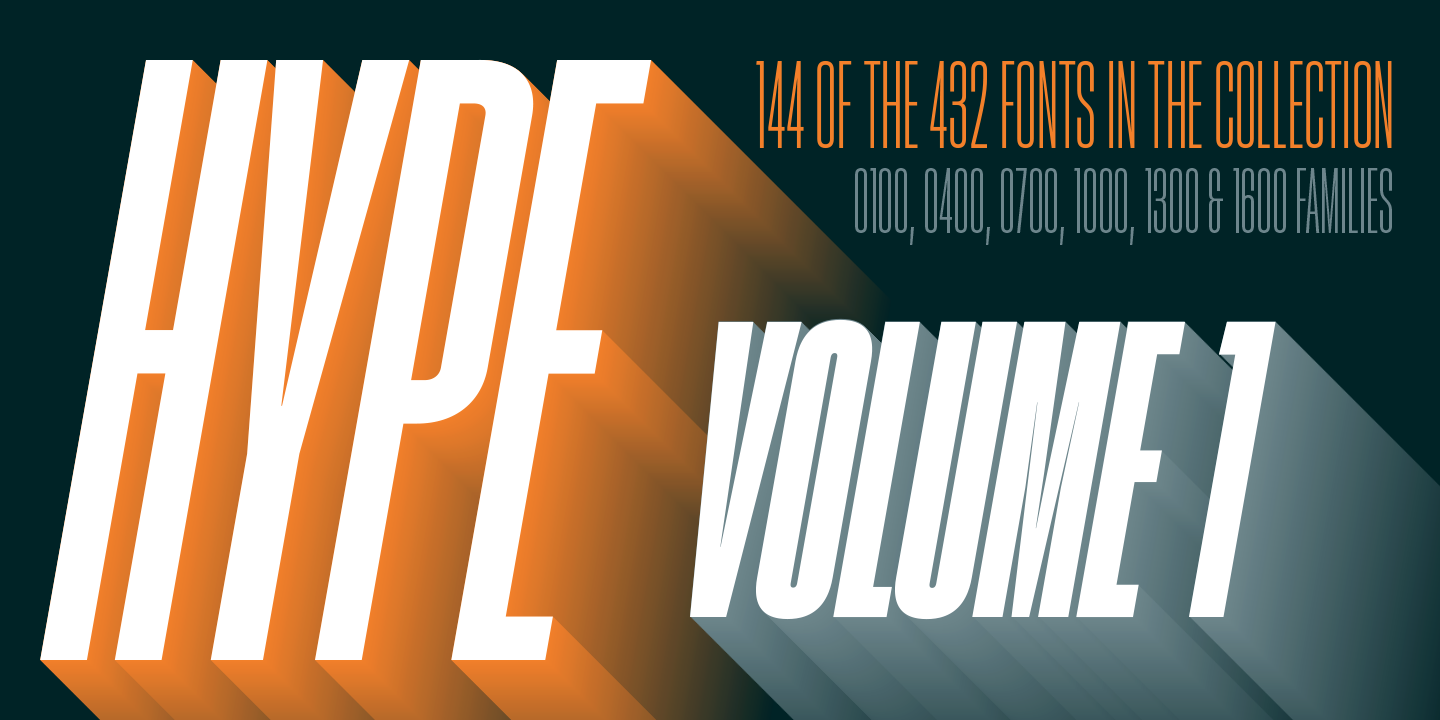
Hype Vol 1 Font is perfect for dynamic streetwear brands, energetic music promotions, trendy social media graphics, vibrant nightclub marketing, exciting product launches, bold youth campaigns, high-energy sports branding, contemporary fashion labels, electric entertainment venues, and buzzing cultural events. This electrifying typeface excels in applications where youthful excitement and cultural momentum need to be communicated with infectious energy and trend-setting attitude that embodies the essence of viral culture and the electric atmosphere found in cutting-edge youth movements and cultural phenomena.
What makes Hype Vol 1 Font exciting is its extraordinary ability to capture the explosive energy and viral momentum of contemporary youth culture through its dynamically charged letterforms that seem to pulse with the electric excitement and infectious enthusiasm that drives modern hype culture and trending movements. The font embodies the spirit of cultural excitement with its energetic construction and trend-driven proportions that suggest the rapid spread of viral content and the magnetic appeal of breakthrough cultural moments. Its boldly crafted character details and electrifying personality create an atmosphere of unstoppable momentum that resonates with young trendsetters, cultural influencers, and brands who understand the power of generating authentic excitement and cultural buzz.
The Hype Vol 1 Font family typically includes Regular and Bold weights, each maintaining the signature energetic characteristics and viral appeal. Some versions offer enhanced dynamic elements that amplify the excitement aesthetic, alternative character sets with trending symbols and cultural icons, and special treatments that simulate the electric energy of viral content. The family may also include outline styles that emphasize the explosive structure and condensed variants that intensify the high-energy atmosphere for maximum impact in youth culture and entertainment applications.
Whether you're creating trendsetting brand identities, viral marketing materials, or high-energy cultural communications, Hype Vol 1 Font Free Download delivers the explosive excitement your buzz-generating projects demand. Its electric character and viral styling make it an essential tool for youth brands, entertainment venues, and cultural creators working in streetwear fashion, youth entertainment, and viral marketing sectors where authentic cultural momentum and infectious excitement are fundamental to establishing relevance and generating genuine buzz within youth communities that drive contemporary culture forward.